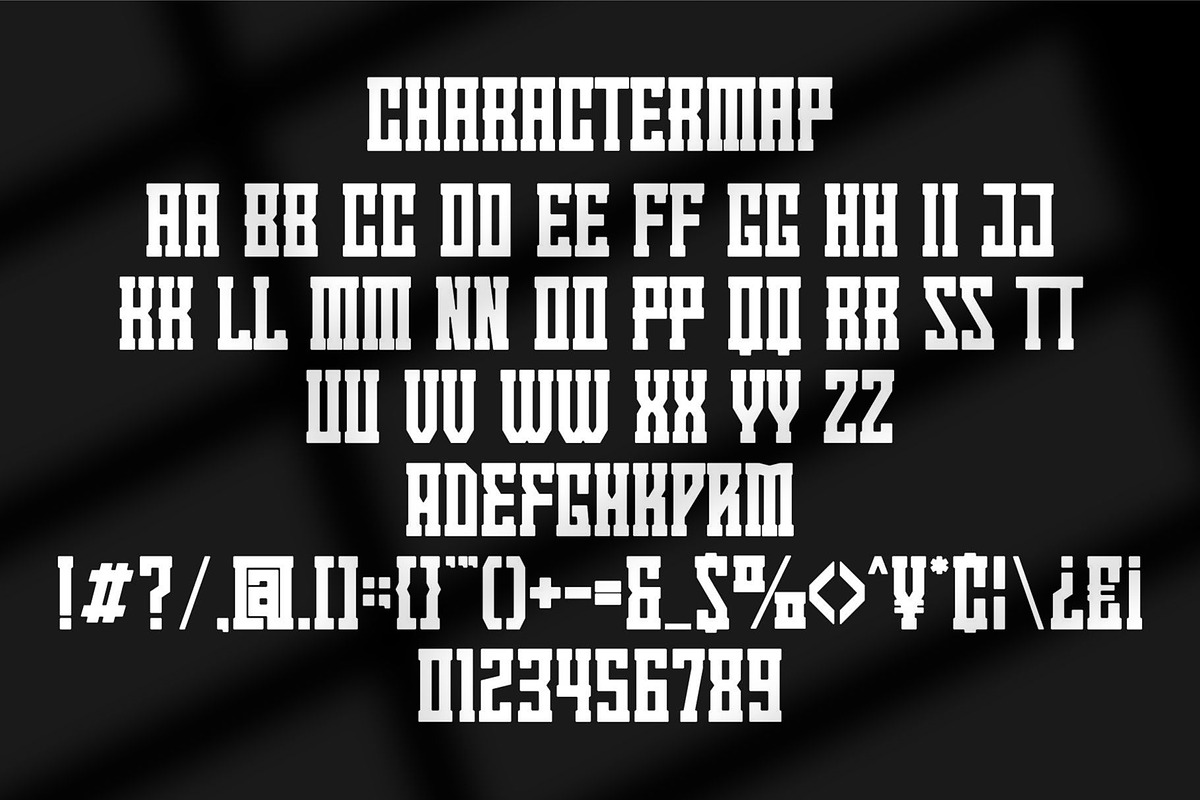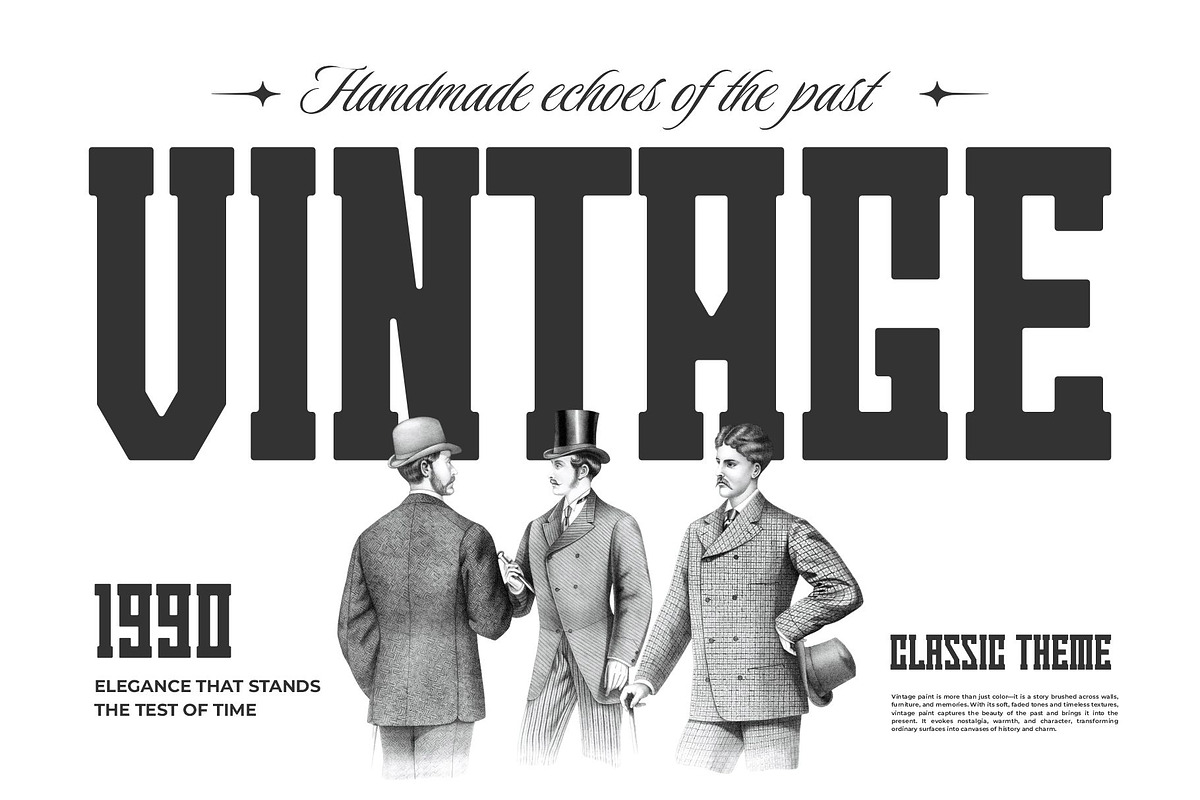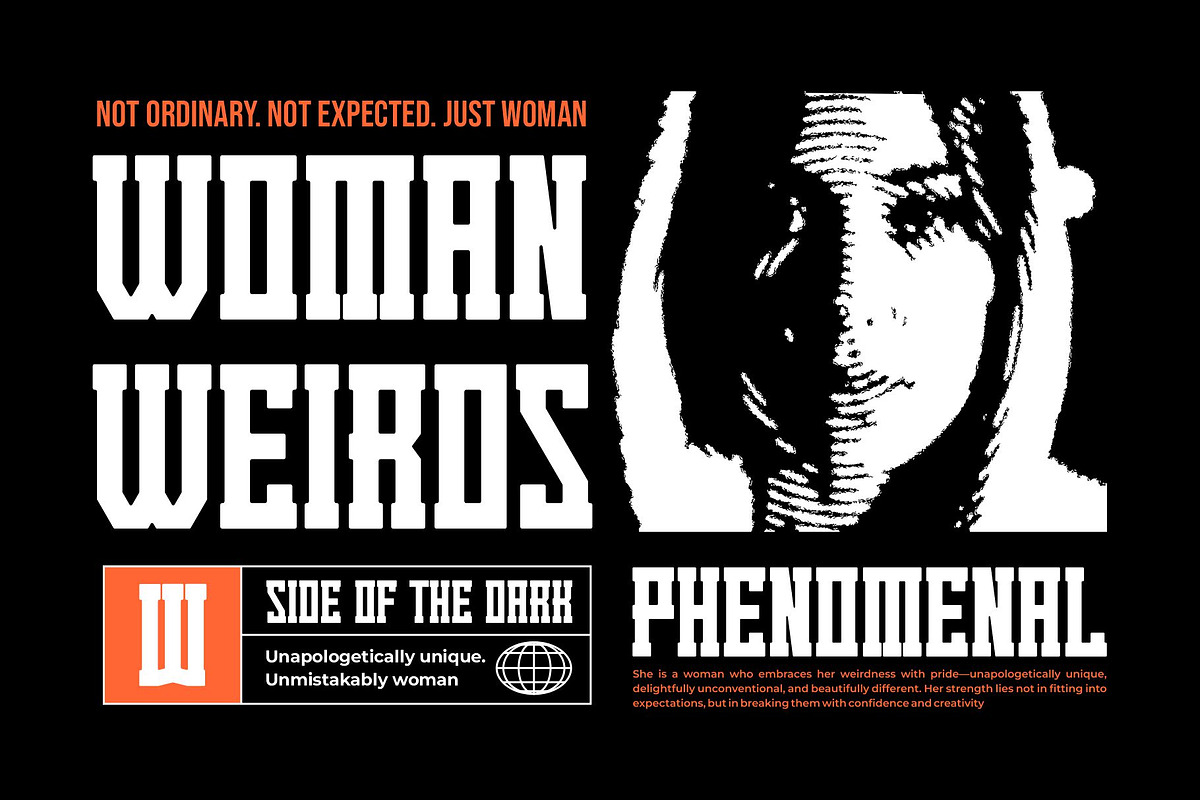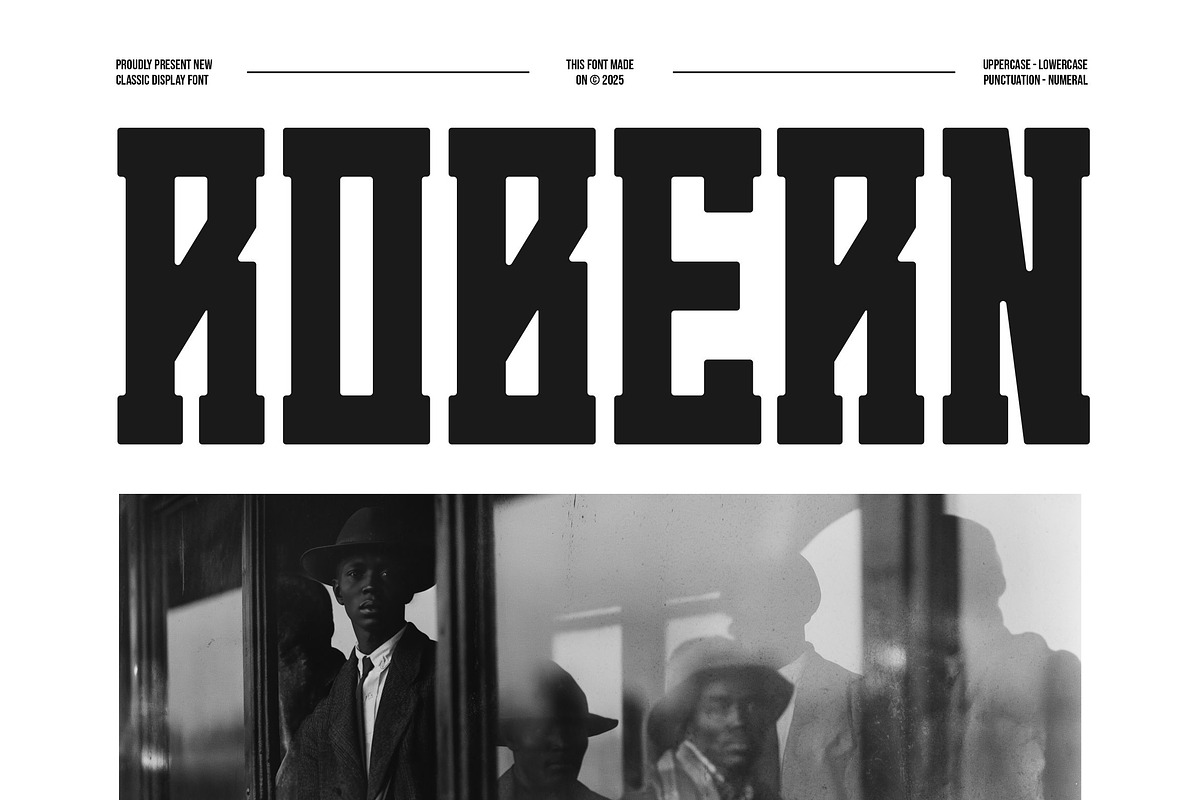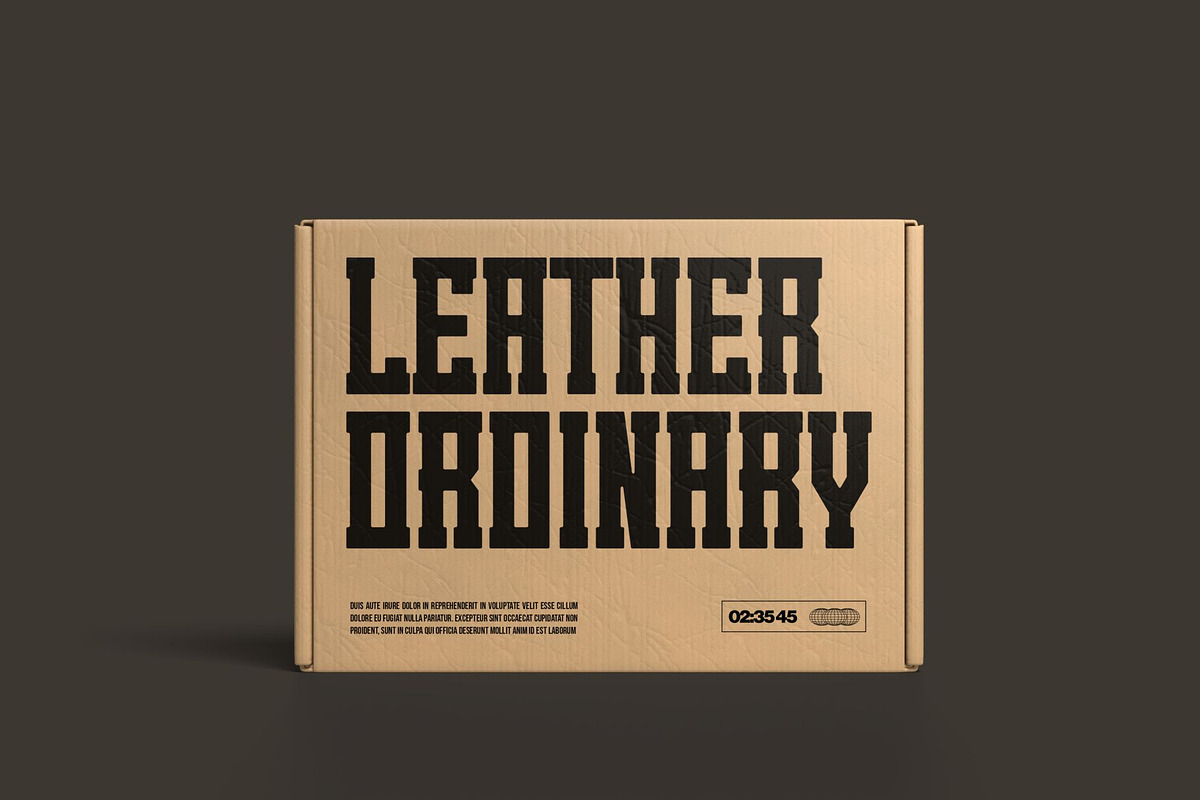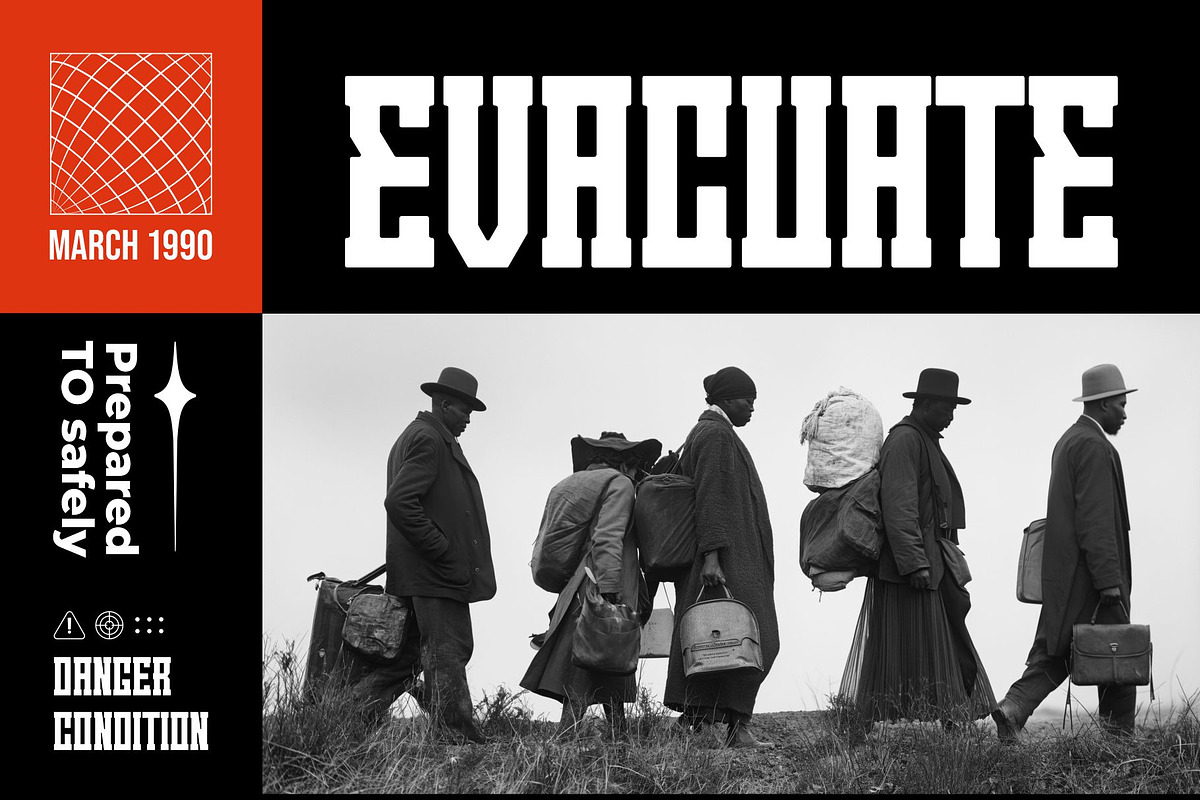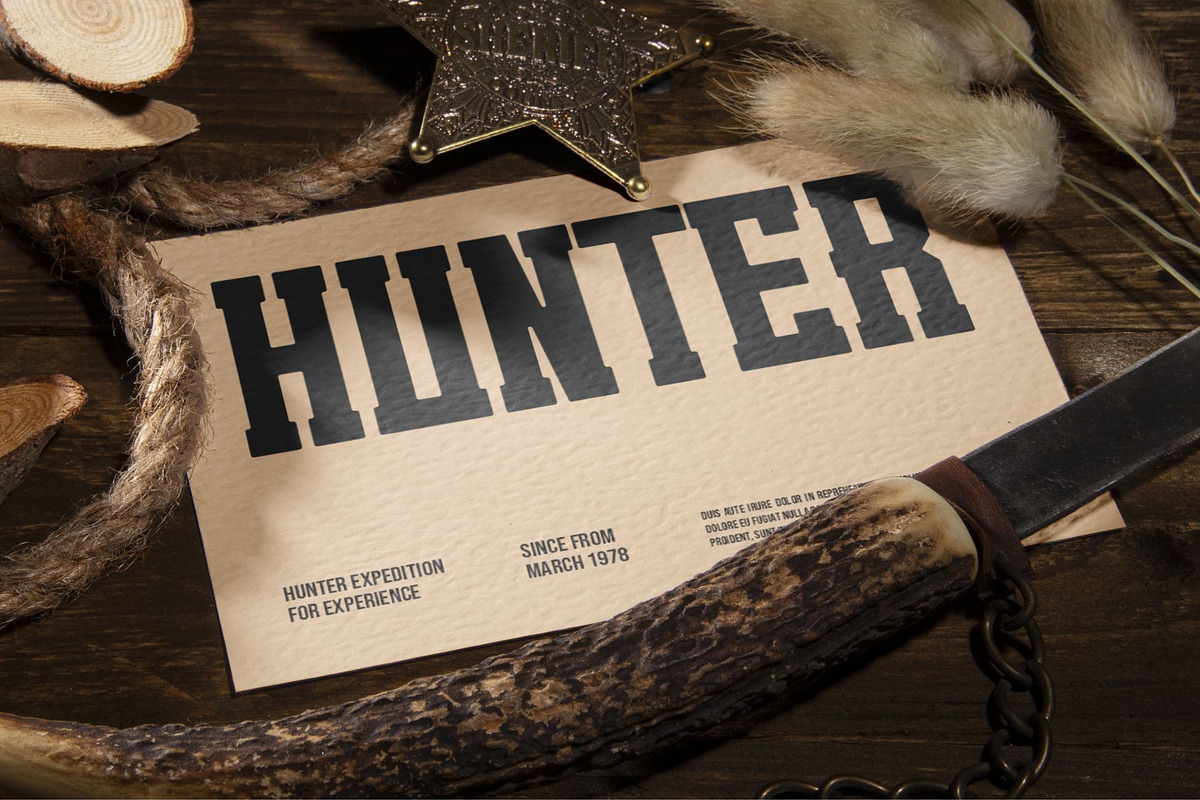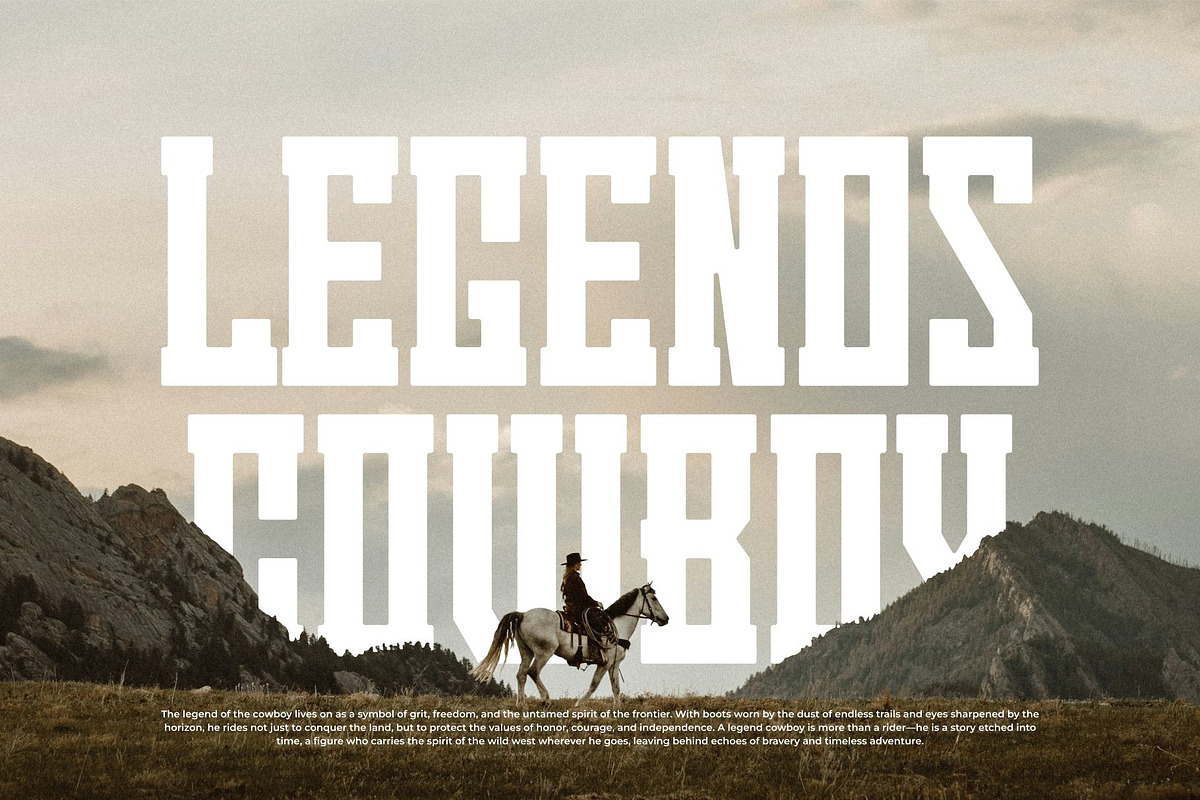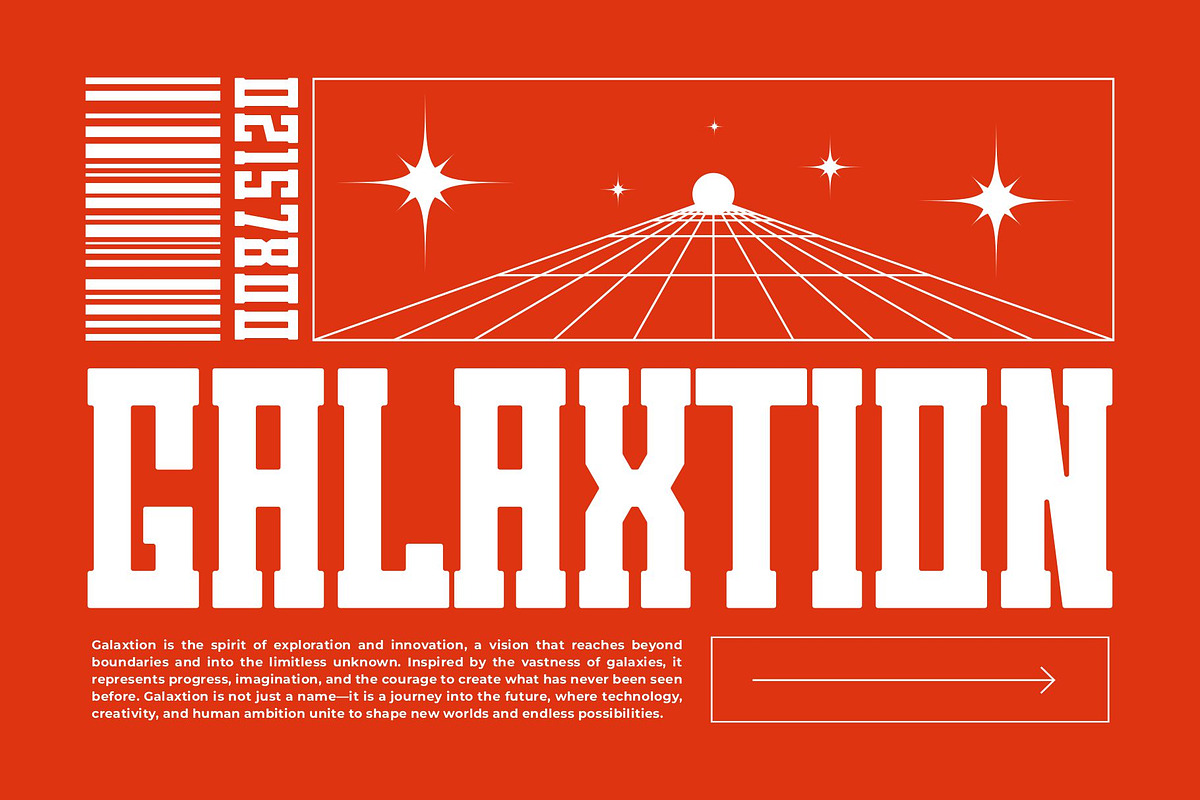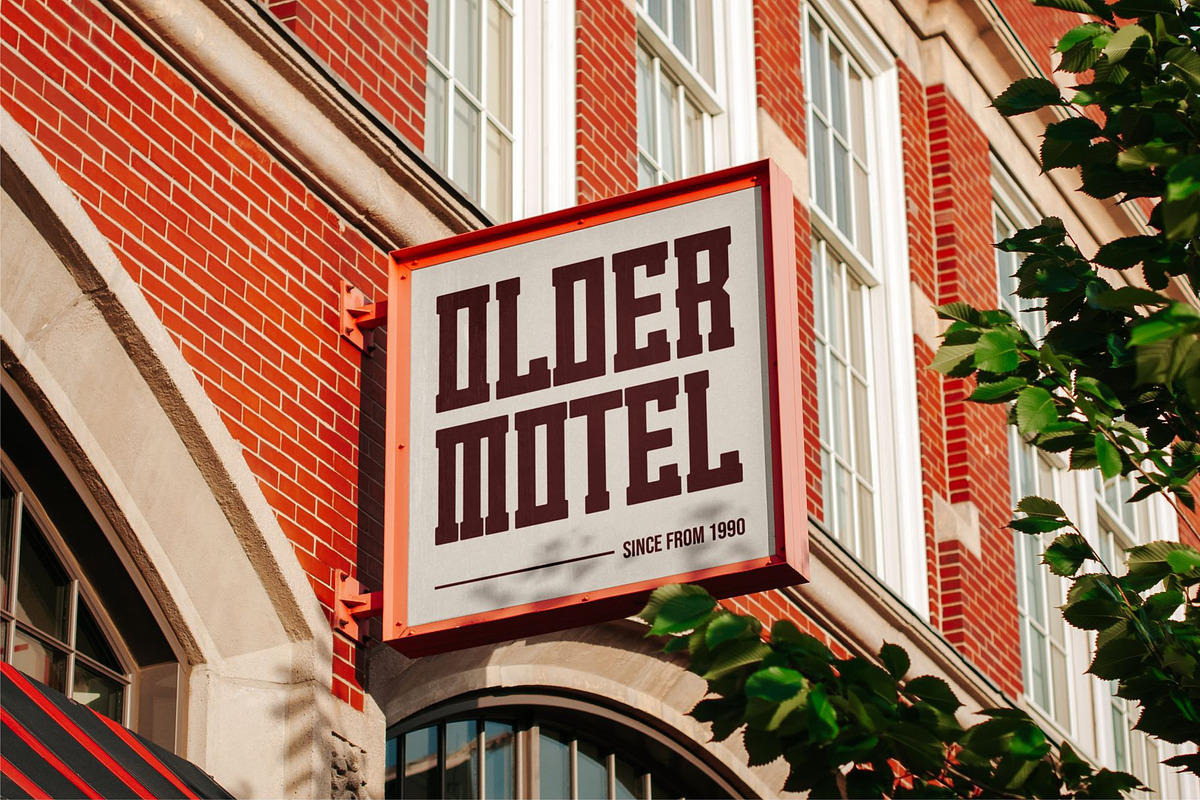
Robern || Modern Tall Condensed Seri
Introducing Robern is tall condensed serif Font modern, trendy and stylish. It has a unique character. It is perfect to be combined with invitation card designs, company logos, movie titles, movie names, business cards, book titles, brand names and various other designs.